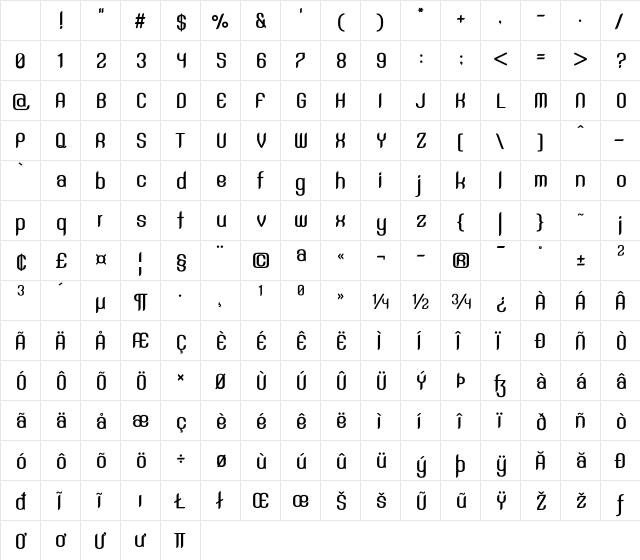
Complete SNT Anouvong Bold glyph index. Displaying only characters natively supported by SNT Anouvong Bold font.
SNT Anouvong is a composed and adaptable typeface that performs quietly and consistently across a wide range of design contexts. Its bold stroke weight gives it real presence on the page.